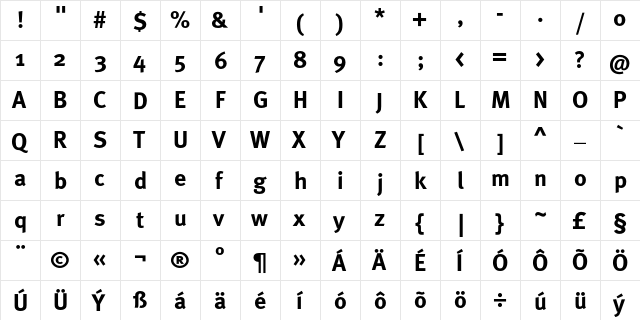
MetaBoldCE Roman
Design Context for MetaBoldCE Typeface
MetaBoldCE is a composed and adaptable typeface that performs quietly and consistently across a wide range of design contexts. The heavy weight commands attention and anchors typographic hierarchies.
Pro Tip: Pair MetaBoldCE with a font of contrasting weight or personality to build a more expressive typographic hierarchy.